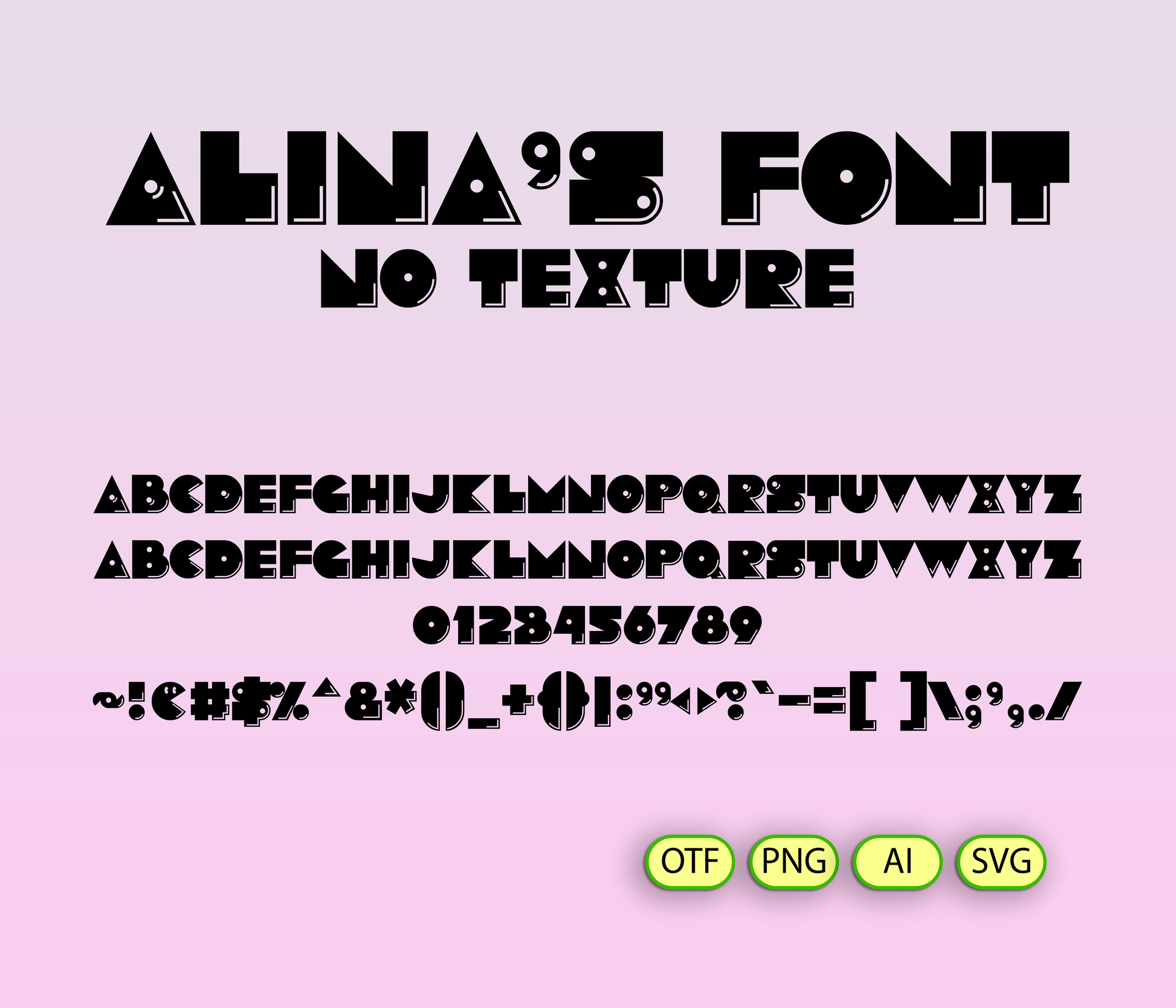
Pixel Play Font
Capture Retro Fun with the Pixel Play Font
Step into the nostalgic world of arcade gaming with our Pixel Play-inspired font. Perfect for fans, event planners, and designers looking to infuse their projects with the playful and iconic spirit of one of the most beloved video games of all time, this font brings the vibrant and dynamic energy of classic arcade games to your designs. Whether creating event invitations, themed merchandise, or digital content, our Pixel Play font ensures your projects resonate with the fun and excitement of the arcade era.
Our Pixel Play-inspired font features bold, rounded characters and playful lines that reflect the energetic and whimsical style of the game. This versatile font is ideal for a variety of applications:
Our Pixel Play font not only pays homage to legendary games but also empowers you to infuse your designs with their lively and playful spirit. Whether crafting promotional materials, designing unique merchandise, or adding a retro touch to personal projects, this font allows you to communicate with the nostalgic and fun energy that defines classic arcade games. Ready to bring the excitement of the arcade to your creative projects? This font is your key to unlocking a world of colorful and dynamic design.